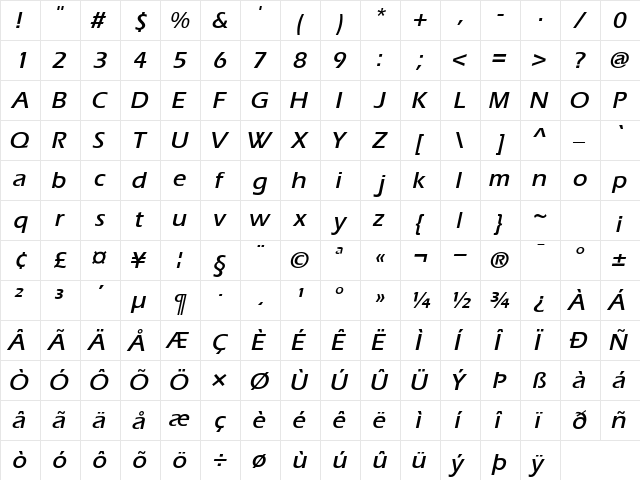
Aquiline BoldItalic
Design Context for Aquiline Typeface
Aquiline takes a measured approach to typography — its balanced proportions and neutral character make it a reliable workhorse for both digital and print work. The slanted form adds forward momentum and visual energy. Its bold stroke weight gives it real presence on the page.
Pro Tip: Use Aquiline for emphasis, pull quotes, and subheadings where its slanted energy can add rhythm to the layout.